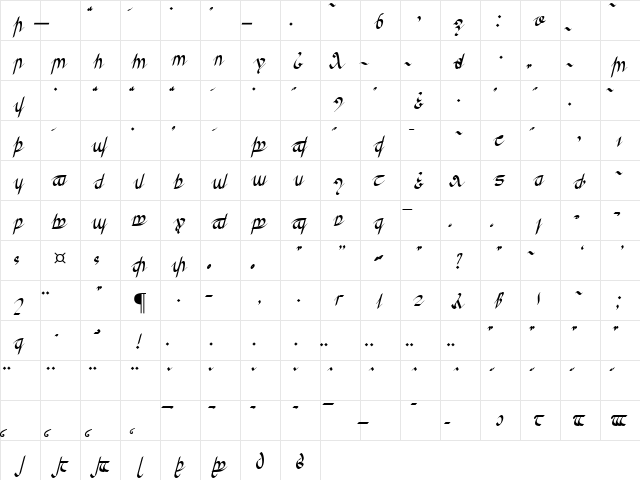
Greifswalder Tengwar Regular
| Foundry | Peter Wiegel |
| Designer | Peter Wiegel |
Design Context for Greifswalder Tengwar Typeface
Greifswalder Tengwar takes a measured approach to typography — its balanced proportions and neutral character make it a reliable workhorse for both digital and print work.